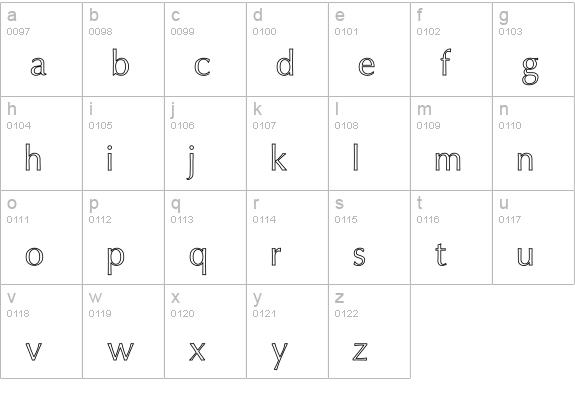
Oxford Hollow Font Details
Introducing Oxford Hollow, a beautifully crafted font that exudes elegance and sophistication. With its intricate details and unique design, Oxford Hollow is the perfect choice for projects that require a touch of vintage charm and timeless appeal. This versatile font can be used for a wide range of design projects, from wedding invitations to branding materials. What sets Oxford Hollow apart is its striking hollow style, which adds a modern twist to its classic aesthetic. The sleek lines and graceful curves of this font create a sense of luxury and refinement, making it a standout choice for any design endeavor. Best of all, Oxford Hollow is available for free download at FontsMarket.com. Whether you're a seasoned designer or just starting out, this font is sure to elevate your work and leave a lasting impression. Don't miss out on the opportunity to add Oxford Hollow to your font collection today!